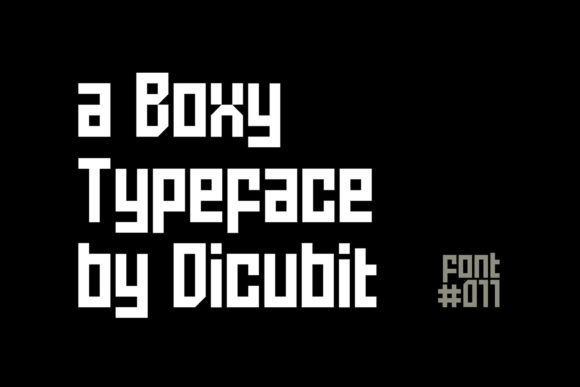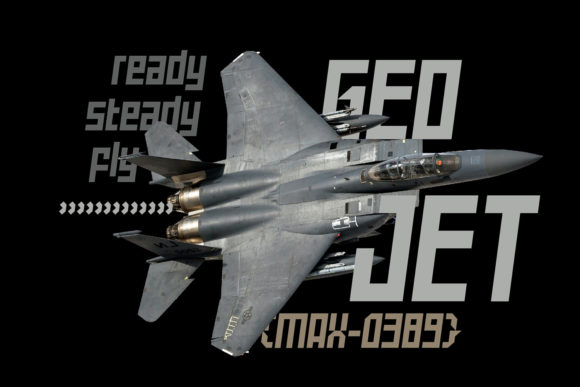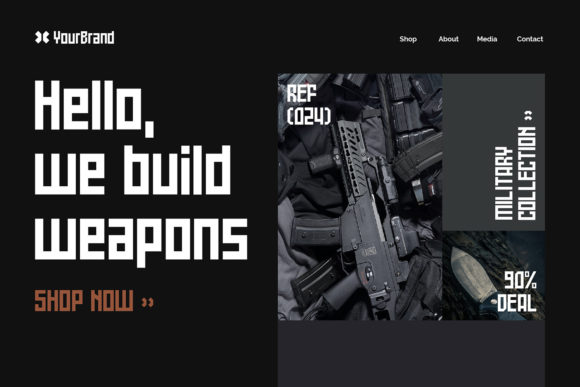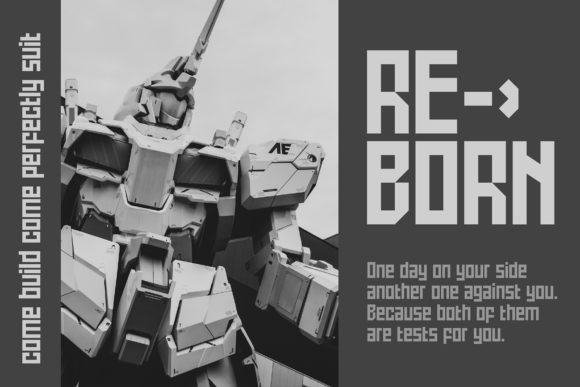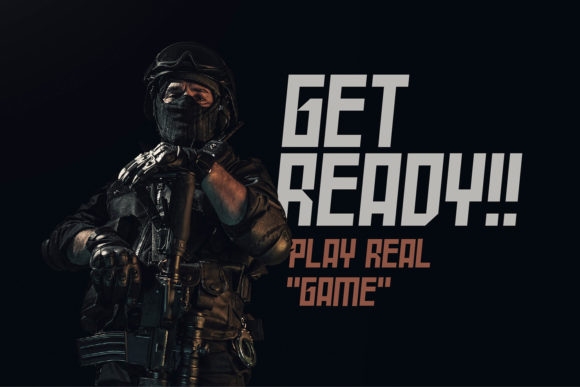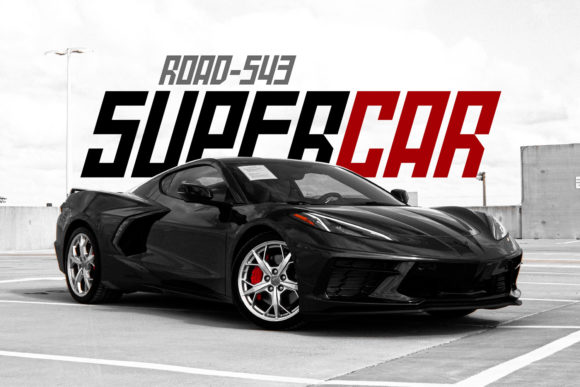
Introducing Battlefly Font: The Ultimate Display Font for Bold Designs
Are you tired of using the same old fonts for your designs? Look no further than Battlefly Font, a bold, squared lettered, and cool display font that’s perfect for making a statement. With its unique and edgy style, Battlefly Font is sure to take your designs to the next level.
What is Battlefly Font?
Battlefly Font is a display font that’s designed to make a bold impact. Its squared letters and sharp edges give it a modern and edgy look that’s perfect for creating eye-catching posters, flyers, and prints. Whether you’re a designer, crafty DIY enthusiast, or simply someone who loves to create, Battlefly Font is the perfect addition to your font collection.
Key Features of Battlefly Font
- Bold and Squared Letters: Battlefly Font features bold and squared letters that are perfect for creating eye-catching designs.
- Cool and Edgy Style: The font’s unique and edgy style makes it perfect for creating modern and trendy designs.
- Highly Versatile: Battlefly Font can be used for a wide range of design projects, from posters and flyers to prints and more.
- Easy to Read: Despite its bold and edgy style, Battlefly Font is easy to read, making it perfect for designs that require a clear and concise message.
- Create Eye-Catching Posters: Use Battlefly Font to create bold and eye-catching posters that grab attention.
- Design Modern Flyers: Battlefly Font is perfect for designing modern and trendy flyers that stand out from the crowd.
- Add a Bold Touch to Your Prints: Use Battlefly Font to add a bold and edgy touch to your prints, such as business cards, brochures, and more.
Benefits of Using Battlefly Font
There are many benefits to using Battlefly Font in your designs. Here are a few:
- Stand Out from the Crowd: Battlefly Font is a unique and bold font that’s sure to make your designs stand out from the crowd.
- Perfect for Modern Designs: The font’s modern and edgy style makes it perfect for creating modern and trendy designs.
- Highly Versatile: Battlefly Font can be used for a wide range of design projects, making it a great addition to your font collection.
- Easy to Read: Despite its bold and edgy style, Battlefly Font is easy to read, making it perfect for designs that require a clear and concise message.
Tips and Tricks for Using Battlefly Font
Here are a few tips and tricks for using Battlefly Font:
- Use it with a Contrasting Color: Battlefly Font looks best when paired with a contrasting color. Try using it with a bright and bold color to really make it pop.
- Experiment with Different Sizes: Battlefly Font looks great in a variety of sizes. Experiment with different sizes to find the one that works best for your design.
- Pair it with Other Fonts: Battlefly Font can be paired with other fonts to create a unique and interesting design. Try pairing it with a script font or a serif font for a bold and edgy look.
Battlefly Font is a bold, squared lettered, and cool display font that’s perfect for making a statement. With its unique and edgy style, it’s sure to take your designs to the next level. Whether you’re a designer, crafty DIY enthusiast, or simply someone who loves to create, Battlefly Font is the perfect addition to your font collection. So why wait? Download Battlefly Font today and start creating bold and eye-catching designs that stand out from the crowd.